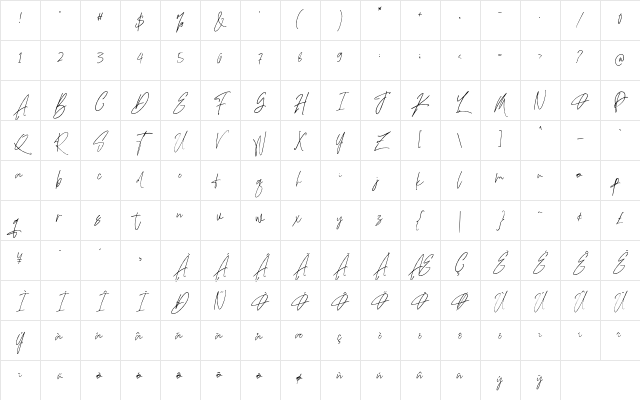
Adustine Signature Regular Free Font
Adustine Signature Regular
Foundry: Ferdiansyah_Dzulka Elfira_Tebaltipisstd_TTS
Designer: Ferdiansyah_Dzulka Elfira_Tebaltipisstd_TTS
Design Context for Adustine Signature
Adustine Signature is a composed and adaptable typeface that performs quietly and consistently across a wide range of design contexts.
Who designed the Adustine Signature Regular font?